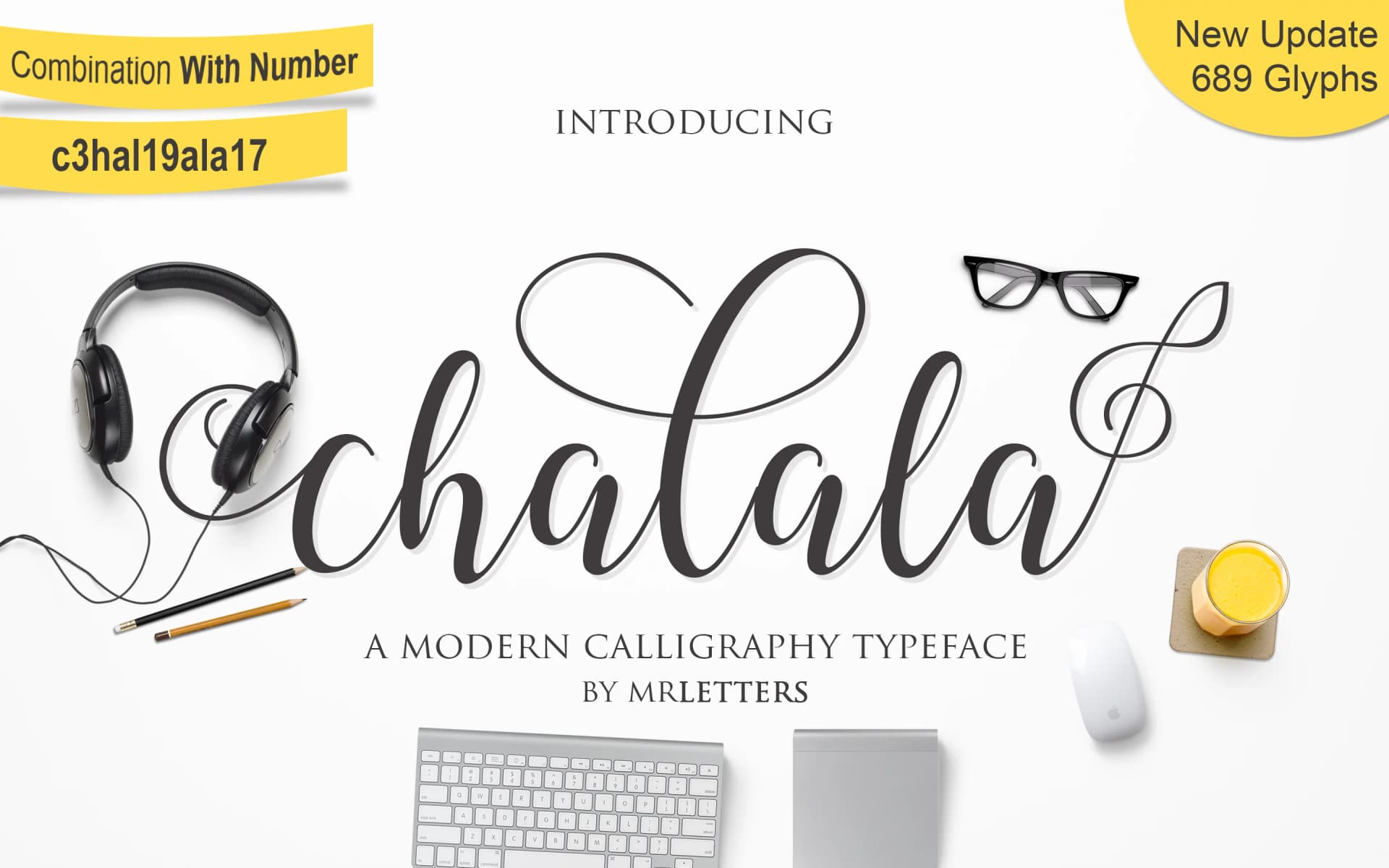
Chalala by Mrletters is a contemporary handwritten script that blends casual sophistication with organic, flowing character. The typeface brings a modern calligraphic sensibility to design work, offering natural movement and genuine personality without the formality of traditional formal scripts. Its letterforms strike a balance between refined elegance and approachable warmth, making it versatile across different creative contexts and design disciplines.
This font is particularly well-suited for wedding invitation suites, where its graceful letterforms add sophistication while maintaining personal warmth and charm. Beyond celebrations, Chalala works exceptionally well for branding creative services, crafting boutique product labels for artisanal goods, designing greeting cards that demand personality and character, and creating custom monogram applications. The typeface also translates beautifully to social media graphics for lifestyle brands and small businesses seeking visual distinction. With 656 unique glyphs available, Chalala offers extensive design flexibility and comprehensive language support for internationally-focused projects, expanding its utility across your creative toolkit.
Chalala Font is a script font that shines as a display or heading face. Pair it with a clean sans-serif or serif font for body text β the contrast creates a clear hierarchy while the two styles stay balanced and easy to read.
Chalala Font
by Mrletters